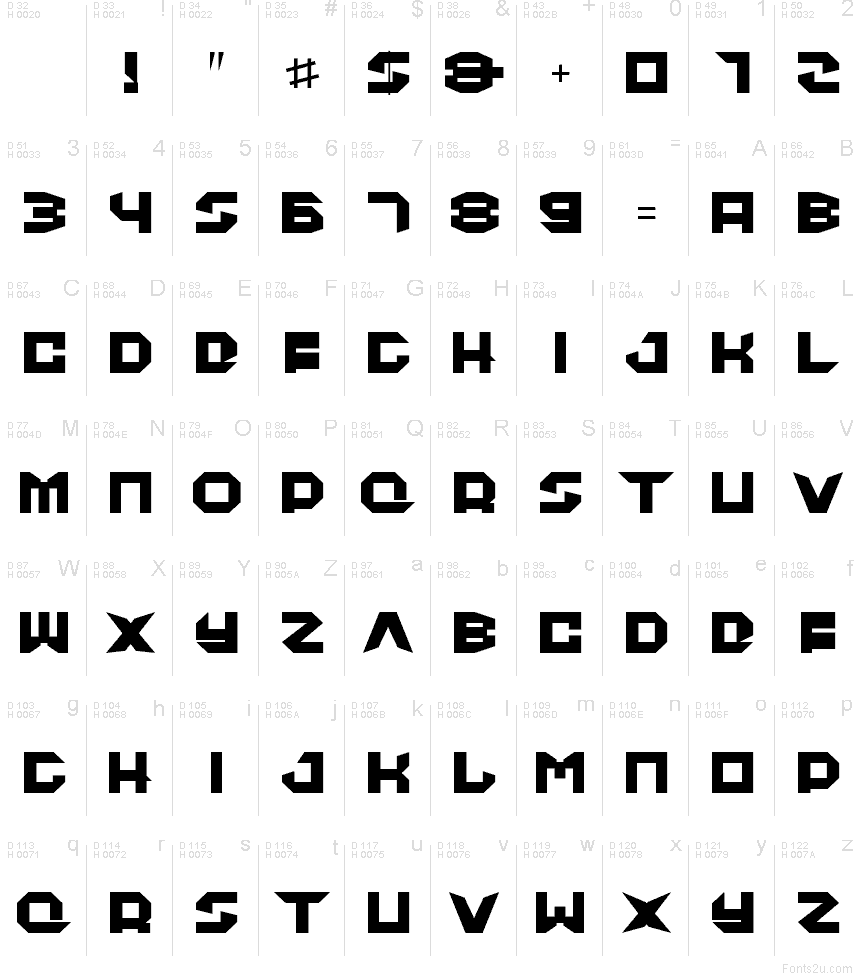
DoughF
DoughF font by Ffeeaarr is a free techno display typeface with a bold, monolithic build and sharp, engineered cuts. Each letter feels like a modular block snapped into place, with square counters and sudden angular notches that give the wordshape a mechanical, almost industrial rhythm. The heavy, black forms land with real weight on the page or screen, making even short words feel like a custom logotype.
Using DoughF, you can push futuristic branding, gaming logos, sci‑fi posters, nightclub flyers, album covers, and tech event graphics into a harder, more experimental zone. This free font thrives at large sizes where its chunky geometry and precise edges can really show. Try pairing DoughF with a clean, light-weight sans serif for small body text to keep things readable while its bold shapes carry the headline.